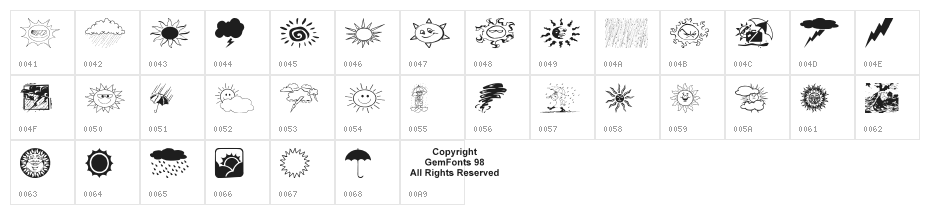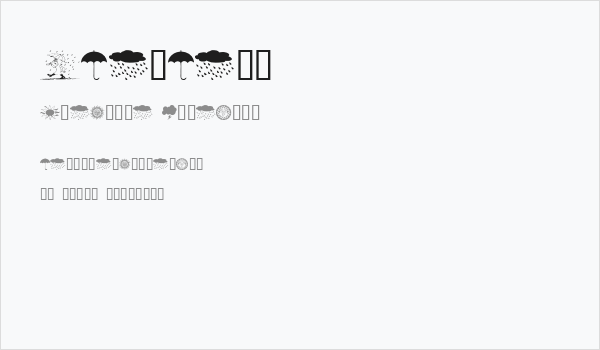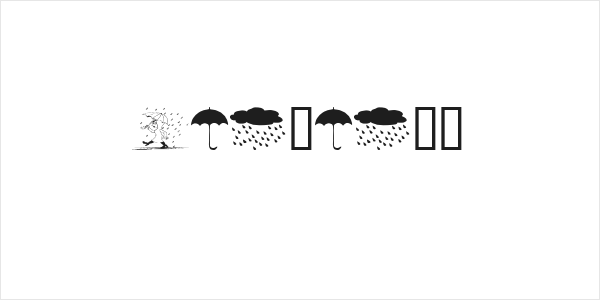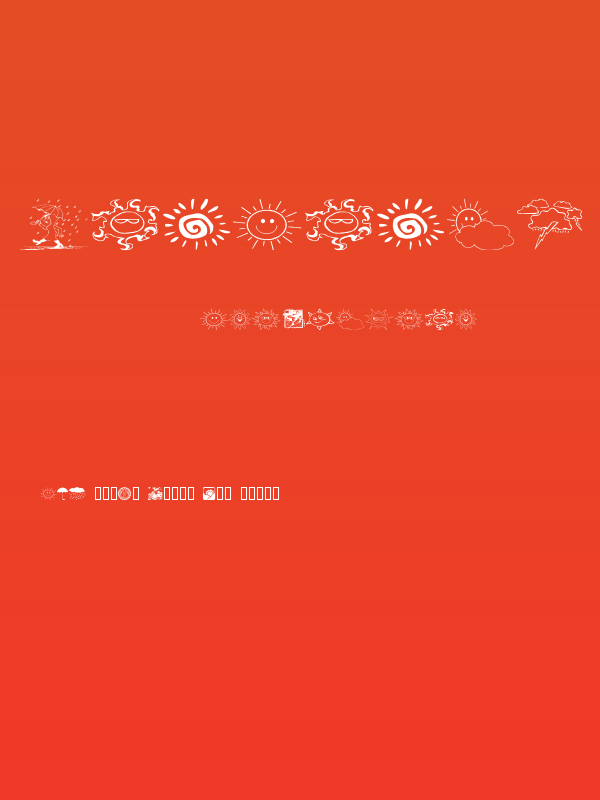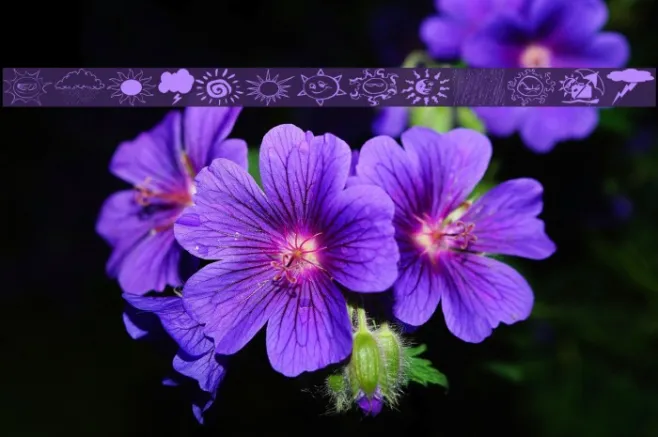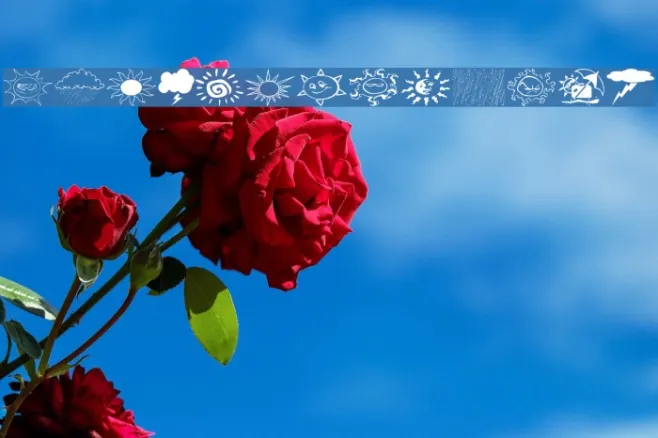
Whethers Font
Whethers Description
A decorative dingbat font featuring various weather-themed icons such as suns, clouds, rain, lightning, umbrellas, and wind, rendered in a playful and illustrative style with both filled and outlined designs.
| Overall Style | Decorative, Playful |
| Use Case | Icons, Decorative elements, Themed graphics |
| Proposed Projects | Weather apps, educational materials, infographics, greeting cards, children's books, decorative headings. |